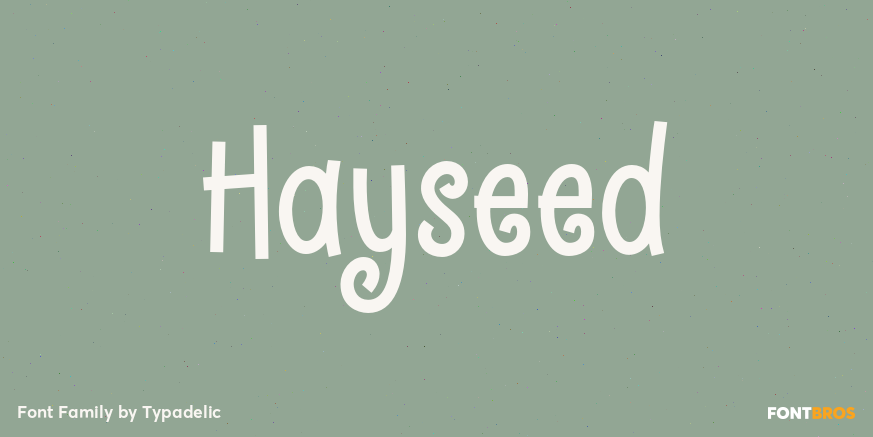
Hayseed
About Hayseed
Round and square, curly and straight are contradictory in terms but aptly describe this unclassifiable typeface. Readable at small sizes but meant for display purposes, Hayseed will fit the bill in a variety of design applications.